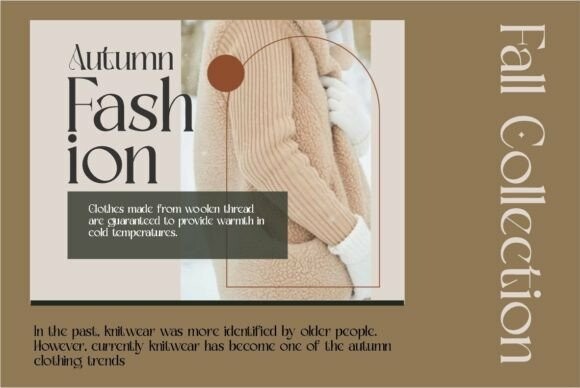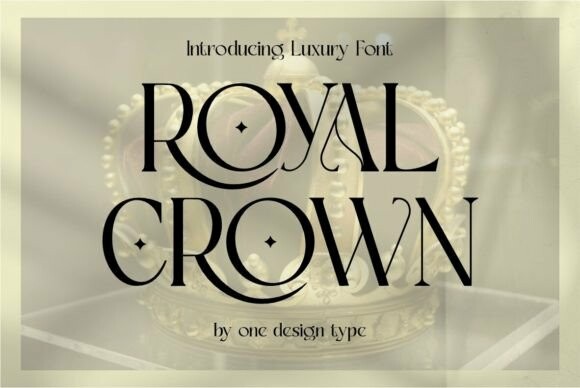
Royal Crown Font
Royal Crown Font, this font is of serif type. The Serif look is inspired by famous logos. This typeface is carefully crafted to ensure premium quality and a luxurious feel. The ties in the serif make this typeface unique and stand out compared to regular serif fonts, suitable for headlines, weddings, social media, logos, posters, packaging, T-shirts, coffee shops, restaurants, magazine headers, signs or gift/posting cards, cafes and wedding or any kind of advertising purpose.